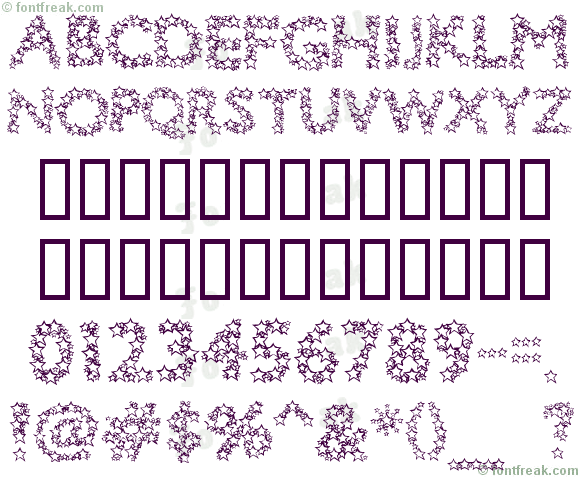
Bingo Star
About Bingo Star
Bingo Star, created by Brain Eaters Font Co. in 2005, is a delightful display font that captures the whimsy and excitement associated with its namesake. This decorative typeface features a playful arrangement of star motifs, making it an eye-catching choice for various creative projects. The visual characteristics include a unique blend of bold strokes and intricate star embellishments, which create a sense of movement and fun. The contrast between the thick and thin elements adds a dynamic quality, while the spacing between the letters ensures readability, even in larger formats.
This font is particularly well-suited for use in party invitations, especially for events like bingo nights or themed celebrations. Its playful aesthetic makes it a fantastic choice for children's book covers or educational materials aimed at younger audiences. Additionally, Bingo Star can enhance promotional materials for local businesses, such as cafes or entertainment venues, where a lively atmosphere is desired. Graphic designers and content creators will find this font invaluable for projects that require a touch of whimsy and charm.
What sets the Bingo Star font apart is its ability to evoke joy and excitement through its starry design, making any project feel more festive and engaging. Whether you’re designing invitations or marketing materials, a Bingo Star font free download can elevate your work, ensuring that it stands out with a unique flair.